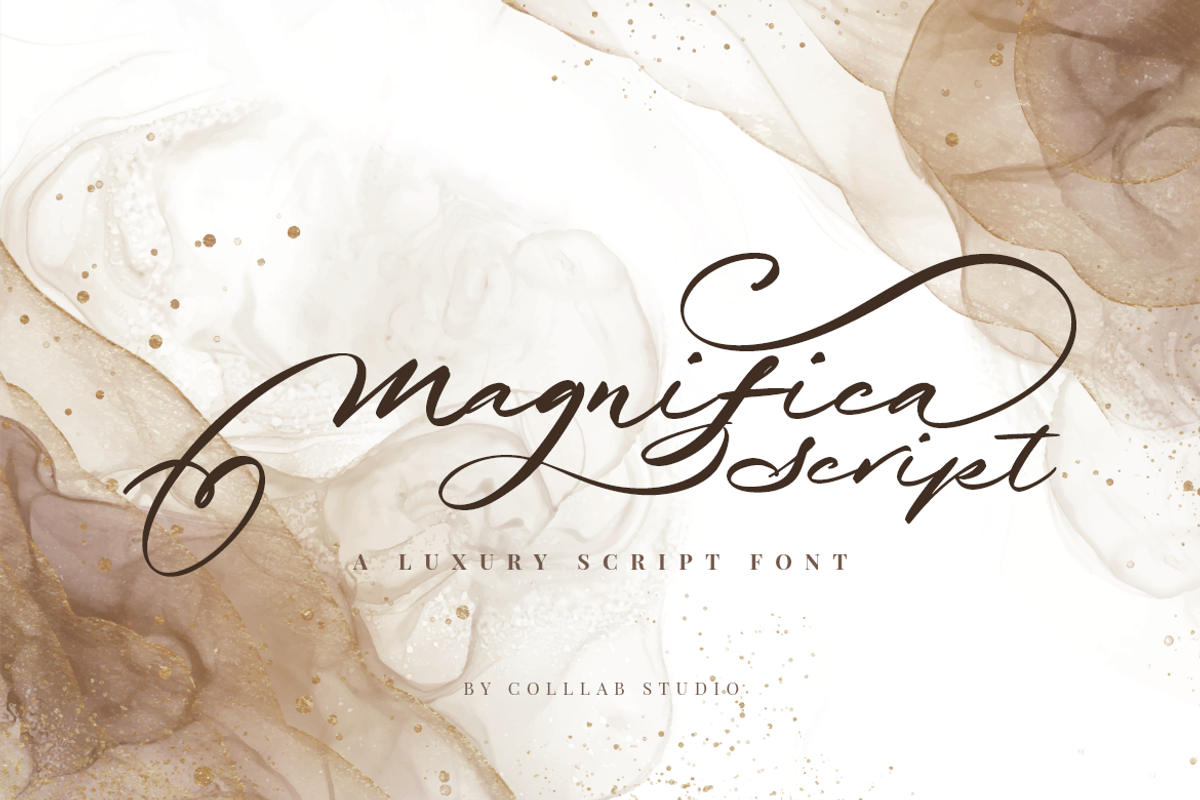
Magnifica Script | A Luxury Font Free Download
The Magnifica Script | A Luxury Font Free Download is an elegant and refined script typeface that brings luxury and sophistication to any design. Perfect for high-end branding, wedding invitations, and upscale promotional materials, this font adds an exclusive touch. Please note, for commercial use, a license must be purchased. You can download it for free for testing purposes.
With its flowing curves and graceful letterforms, the Magnifica Script | A Luxury Font Free Download is ideal for designs that need a touch of class and elegance. Whether you’re designing for luxury brands, exclusive events, or premium products, this font offers a high-end aesthetic that elevates your work.